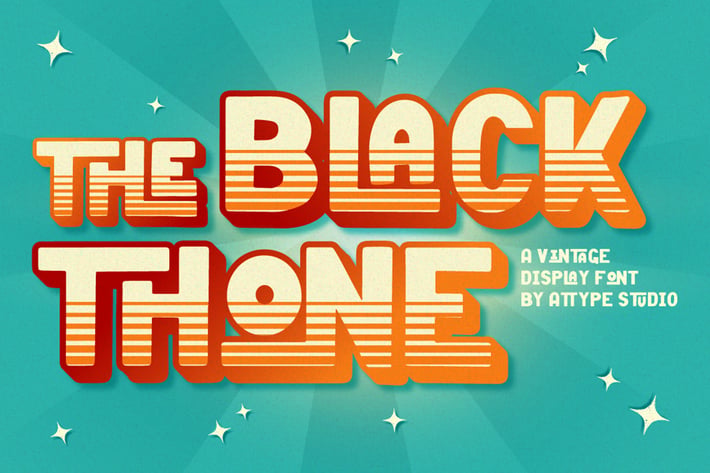
Black Thone - Vintage Display Font
Introducing Black Thone - Inspired by typeface on 70s era, Black Thone has the vintage font & retro font style.
with 3 font style, It's super easy to use 3D effect wint Black Thone family font.
Three style Font: Regular, Display & Extruded
Black Thone is perfect for children product, branding, logo, invitation, stationery, product packaging, merchandise, monogram,
blog design, game titles, cute style design, Book/Cover Title and more.